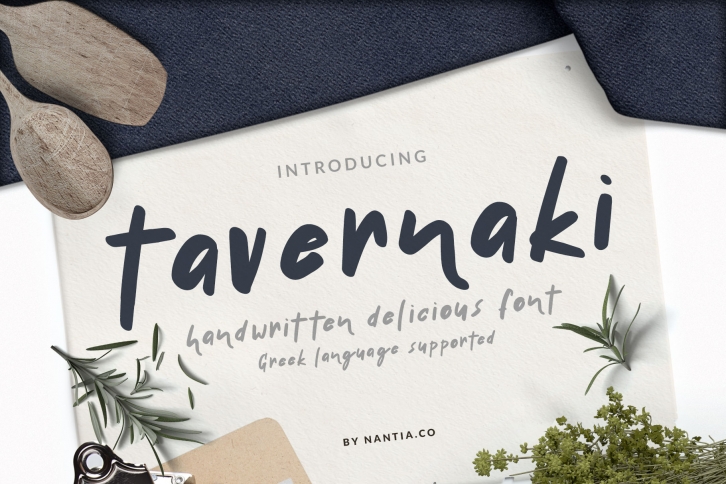
Handwritten Delicious Tavernaki is a gorgeous font that was realeased on August 31, 2018. The font can be used in many style contexts and design environments. Perfect for invitations, magazines, websites, logos, and more! It was designed by nantia and the file size is 18.60 MB. Thanks for checking out this font!